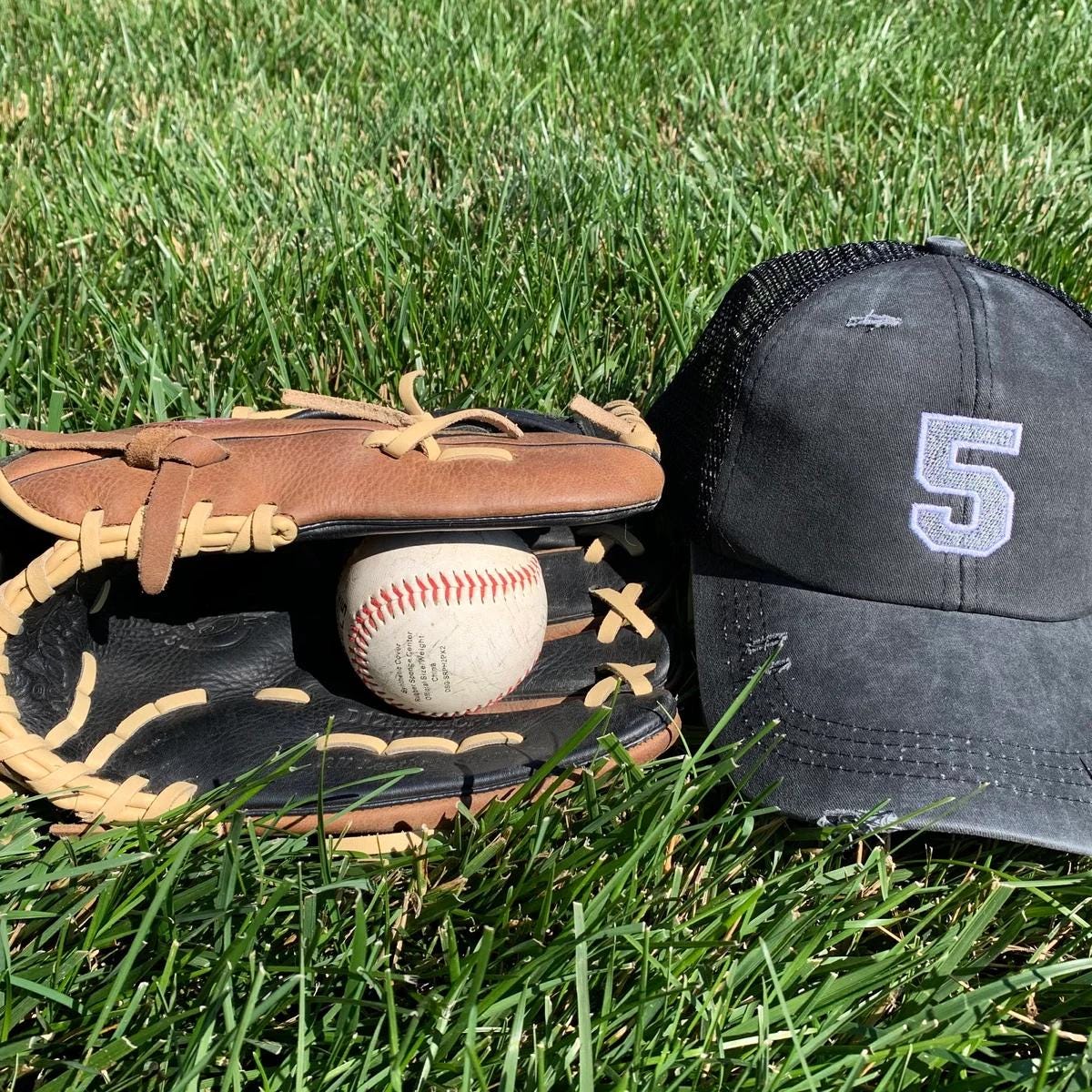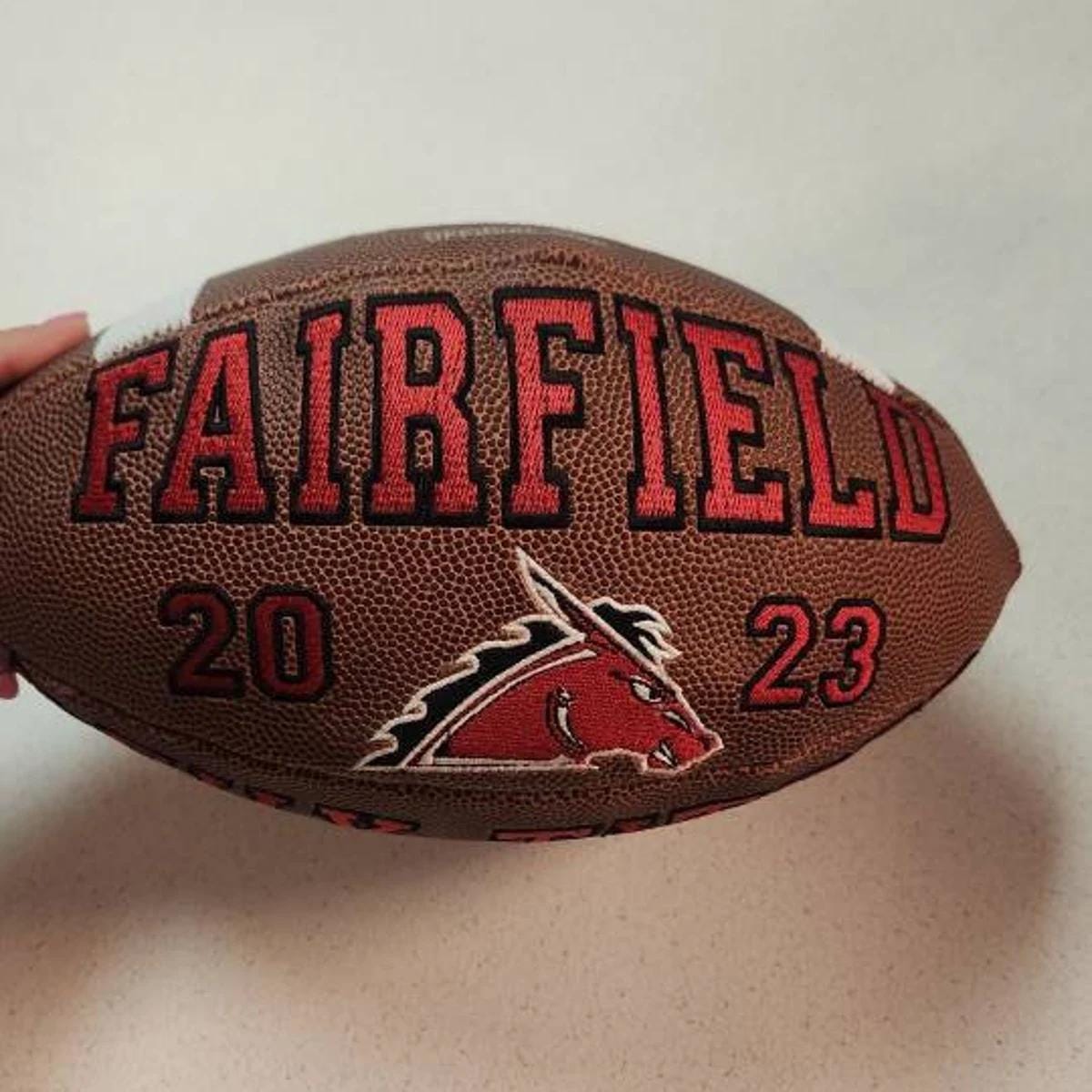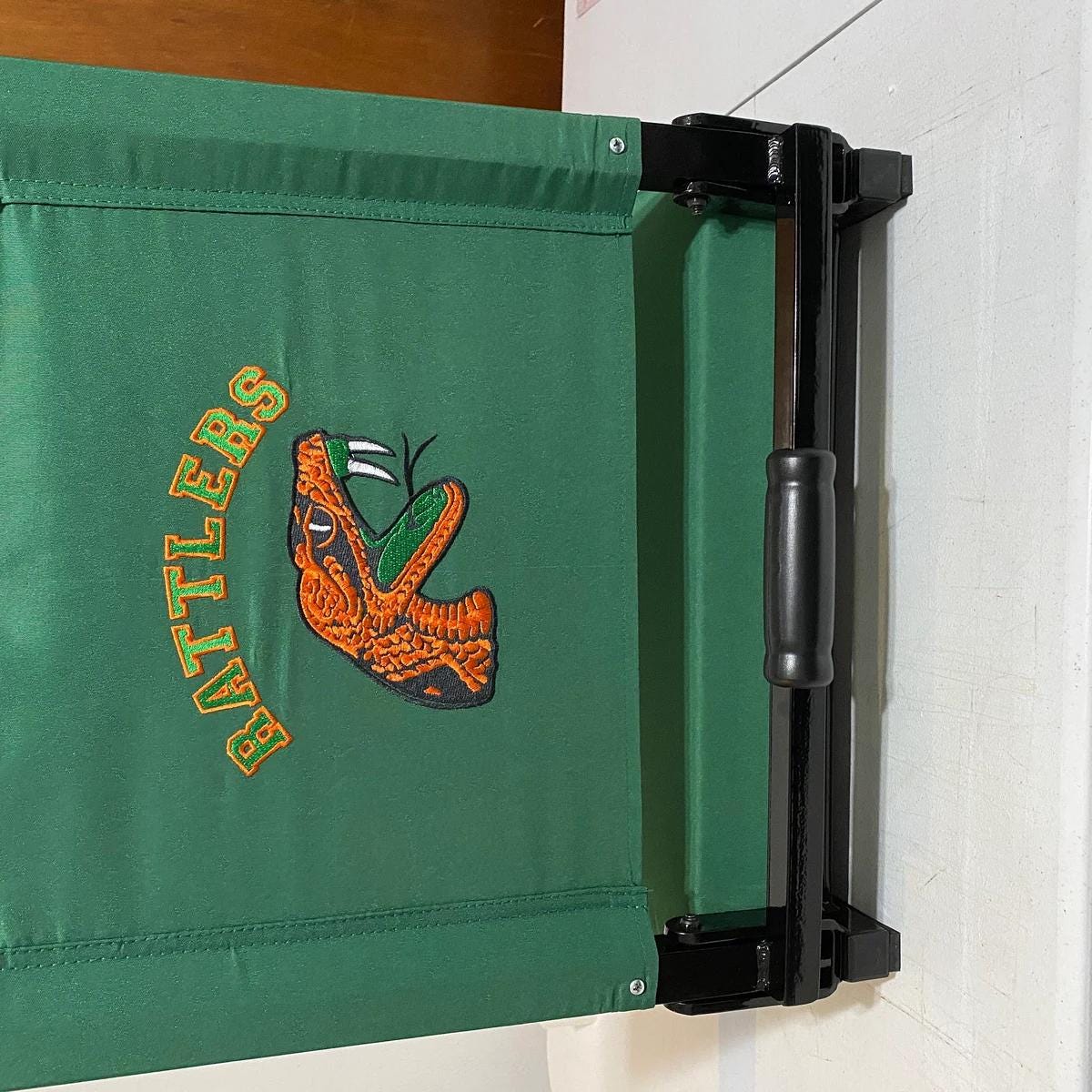
Varsity Collegiate type Font machine embroidery designs monogram capital and lowercase letters and numbers fill stitch alphabet BX included
The design has a fill stitch and outline.
Uppercase letters A-Z
Lowercase letters a-z
Numbers 0-9
Punctuation , . / !&? #